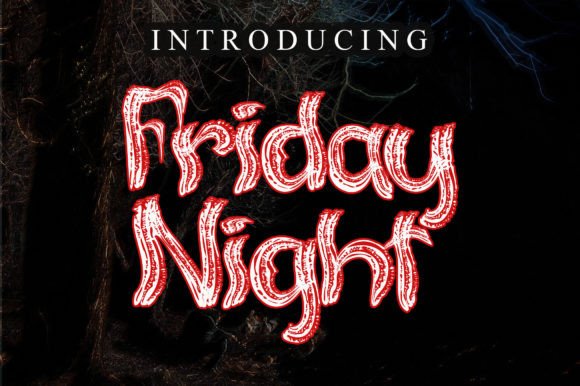
Friday Night: The Horror Font That Elevates Your Designs
If you're looking to make a bold visual impact with your creative projects, the right font can be the difference between something that blends in and something that stands out. Enter Friday Night, a horror display font that brings a natural, eerie aesthetic to your work. Designed for those who want to infuse their designs with an unsettling yet artistic vibe, Friday Night offers more than just style—it delivers a sense of atmosphere and storytelling through typography.
Why Friday Night Matters in Design
Fonts are more than just letters; they’re emotional triggers. A well-chosen typeface can evoke fear, nostalgia, or intrigue, depending on its design. For designers working in genres like horror, thriller, or dark fantasy, finding the perfect font is essential. It's not enough to have a scary image or a chilling story—your text needs to match the tone and intensity.
Friday Night does this exceptionally well. Its jagged edges, uneven spacing, and haunting character shapes create a sense of unease that complements any horror-themed project. Whether you're designing a movie poster, branding a haunted house experience, or crafting a book cover for a suspense novel, Friday Night adds a layer of authenticity and mood that few other fonts can replicate.
Practical Applications for Professionals
Professionals across various industries can benefit from using Friday Night. Here’s how it fits into real-world scenarios:
- Branding & Logos: Businesses in the entertainment, gaming, or niche retail sectors often rely on strong visual identities. Friday Night can help establish a brand as edgy, mysterious, or even sinister—perfect for companies targeting thrill-seekers or fans of the macabre.
- Logos and Clothing: Apparel brands that focus on gothic, punk, or alternative styles can use Friday Night to craft logos or screen-print designs that resonate with their target audience. The font’s organic feel makes it ideal for creating a handcrafted, vintage look.
- Posters and Magazines: When designing promotional materials for horror films, festivals, or themed events, Friday Night adds an instant sense of dread and anticipation. Its dramatic presence helps draw attention and set the tone before viewers even see the visuals.
- Book Covers: Authors of horror, mystery, or dark fiction need covers that speak volumes. Friday Night can amplify the genre by making titles appear ominous and compelling, encouraging potential readers to pick up the book.
- Photography and Packaging: Even outside traditional print media, Friday Night can enhance digital content. In photography, it can be used for captions or titles to add a spooky overlay. On product packaging, especially for limited-edition items or Halloween-themed collections, it creates a memorable first impression.
How Friday Night Supports Creativity and Communication
Design is about communication, and sometimes, you need a font that doesn’t just say something but screams it. Friday Night is one of those fonts. Its unique structure allows for expressive use in both short phrases and longer text blocks, giving designers the flexibility to experiment while maintaining a cohesive theme.
For instance, marketers promoting a new horror game might use Friday Night in social media banners to generate excitement and curiosity. Educators could incorporate it into lesson plans or event posters for school Halloween activities to engage students. Freelancers and hobbyists can leverage its versatility to stand out in competitive markets or personal projects.
The font’s “natural” appearance also means it feels less manufactured and more authentic. This quality can help build trust with audiences who appreciate raw, unfiltered design elements—especially when the goal is to tell a story or convey emotion without overdesigning the message.
Real-World Use Cases
Let’s explore some specific examples where Friday Night shines:
- Haunted Attraction Branding: A local haunted attraction wants to rebrand for the upcoming season. They choose Friday Night for their logo because it instantly conveys the kind of fear they aim to provoke. The font becomes part of their identity, appearing on tickets, signage, and promotional materials to maintain a consistent, spine-chilling experience.
- Clothing Line Typography: An independent clothing designer launches a line inspired by classic horror movies. Using Friday Night on T-shirt graphics and labels gives the collection a vintage, handmade look while staying true to the horror theme. Customers notice the font immediately and associate it with the brand’s unique style.
- Event Poster Design: A film festival featuring indie horror shorts uses Friday Night in the title of their event poster. The font draws immediate attention and sets the right expectations for attendees. Combined with dark imagery and red accents, it enhances the overall aesthetic and drives ticket sales.
Whether you're a seasoned professional or a passionate creator, adding Friday Night to your typography repertoire opens up new possibilities for storytelling and expression. As with any resource, it’s about knowing your audience and matching the right element to the right purpose. And in the world of horror and dark aesthetics, Friday Night is a standout option worth exploring.